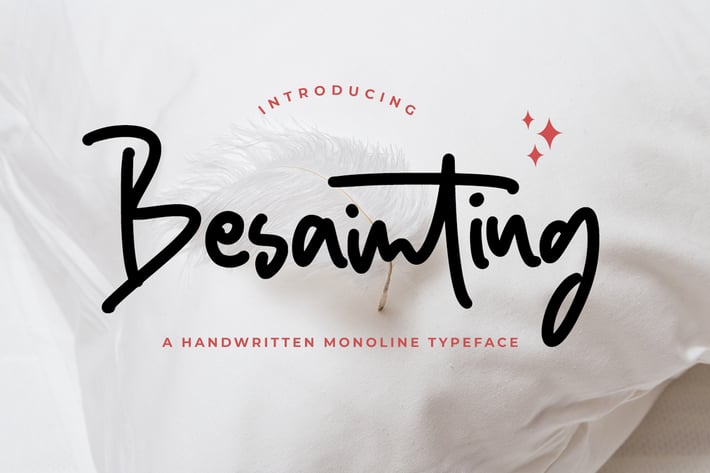
Besainting - Bold Monoline Font
Besainting is a bold monoline script font. Get inspired by this elegant and stylish typeface and use it in your next design project! It looks beautiful on logos, banners, restaurant menus, cards, and many more.